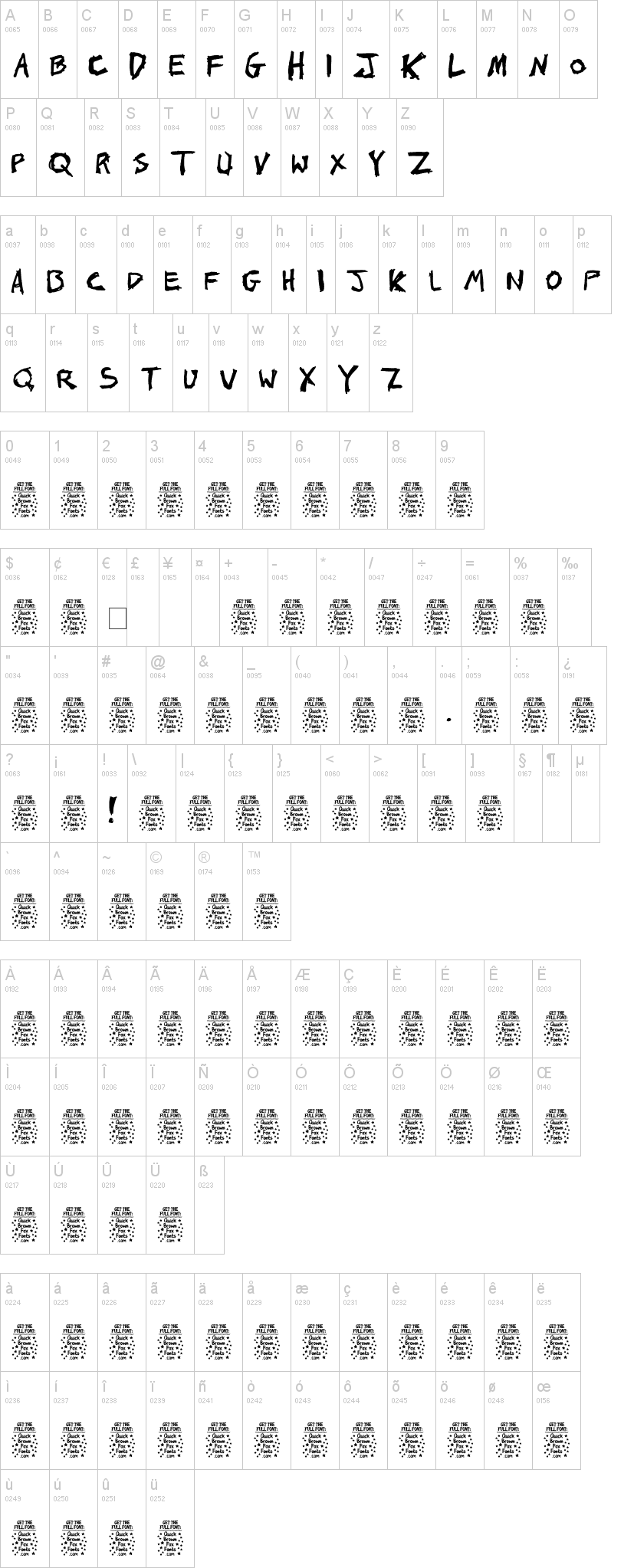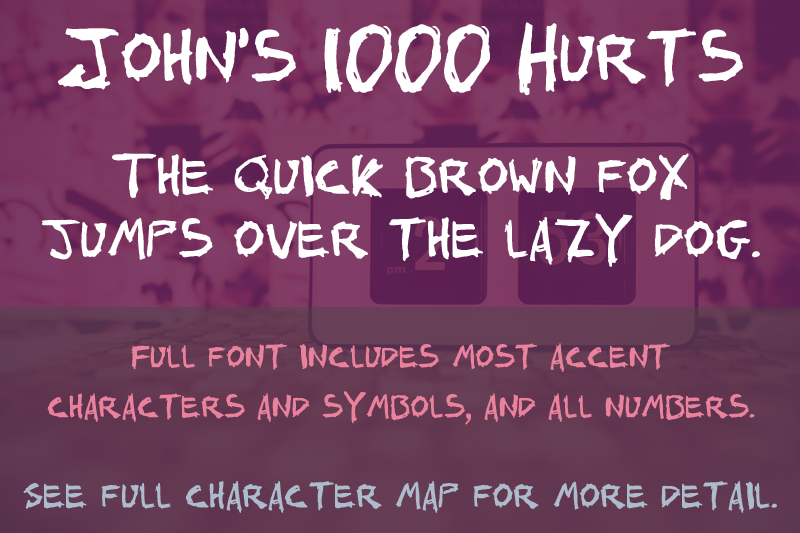
Note of the authorThe Johns 1000 Hurts handwriting font was scrawled out one evening on a piece of paper by a friend in high school while we sat listening to records. I think it nicely captures high school angst. Since its release (probably in late 2000), Ive added several more glyphs, including accent characters.